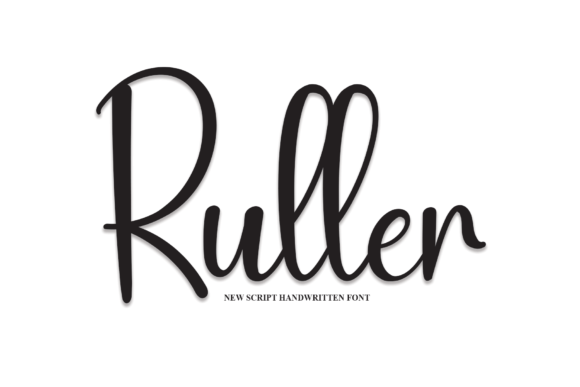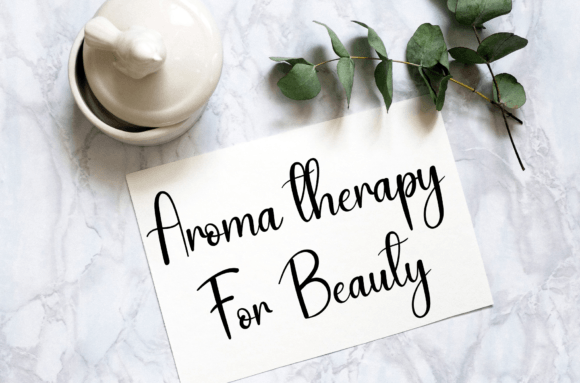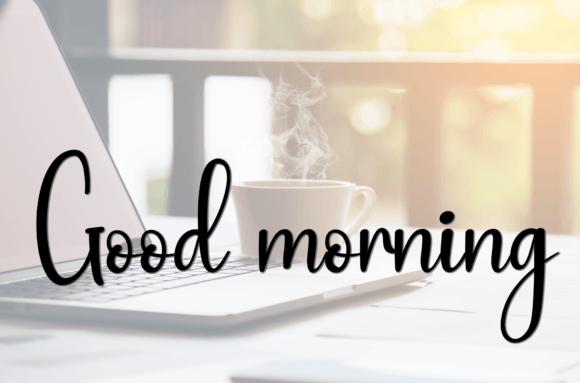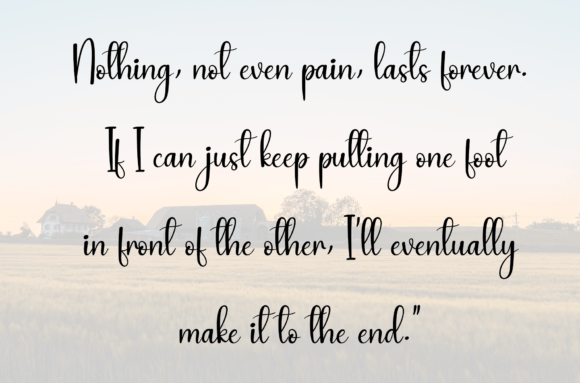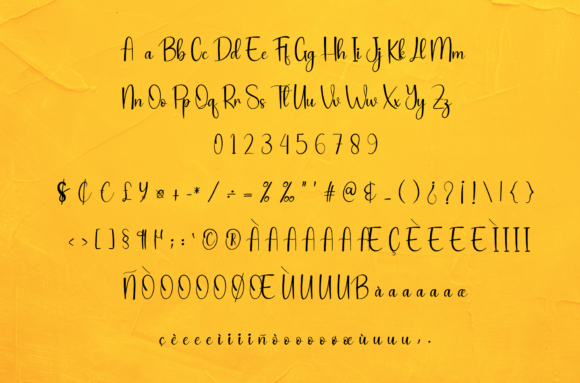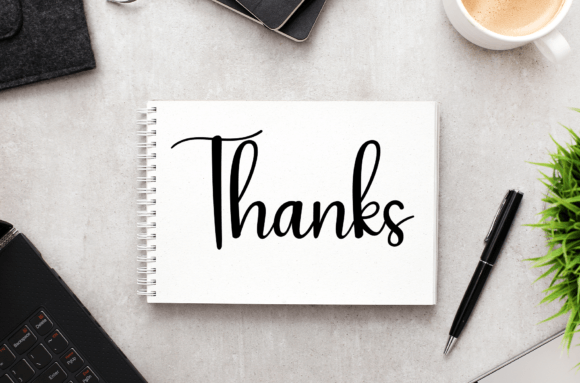
Ruller Font
About Ruller Font: Elegant Handwritten Script for Creative Designs
Ruller font offers a charming and elegant handwritten style that adds a personalized touch to a variety of design projects. This font’s graceful curves and smooth lines make it a beautiful choice for creative works that require sophistication and warmth.
Perfect for Wedding Invitations and Thank You Cards
With its elegant flow, Ruller font enhances the emotional impact of wedding invitations and thank you cards. It brings a delicate, heartfelt feel that complements romantic and special occasions beautifully.
Ideal for Quotes and Greeting Cards
Rullerfont is also a great fit for quotes and greeting cards, giving your messages a unique handwritten touch. Its readability and style ensure your words stand out with grace.
Suitable for Logos and Business Cards
Beyond stationery, Rullerfont works well in branding, including logos and business cards. It lends a refined and approachable look that can elevate your brand identity.
Versatile Usage and Design Tips
Rullerfont adapts seamlessly across digital and print projects. Pair it with simple sans-serif fonts for a balanced look, or use it alone to highlight key elements in your design.